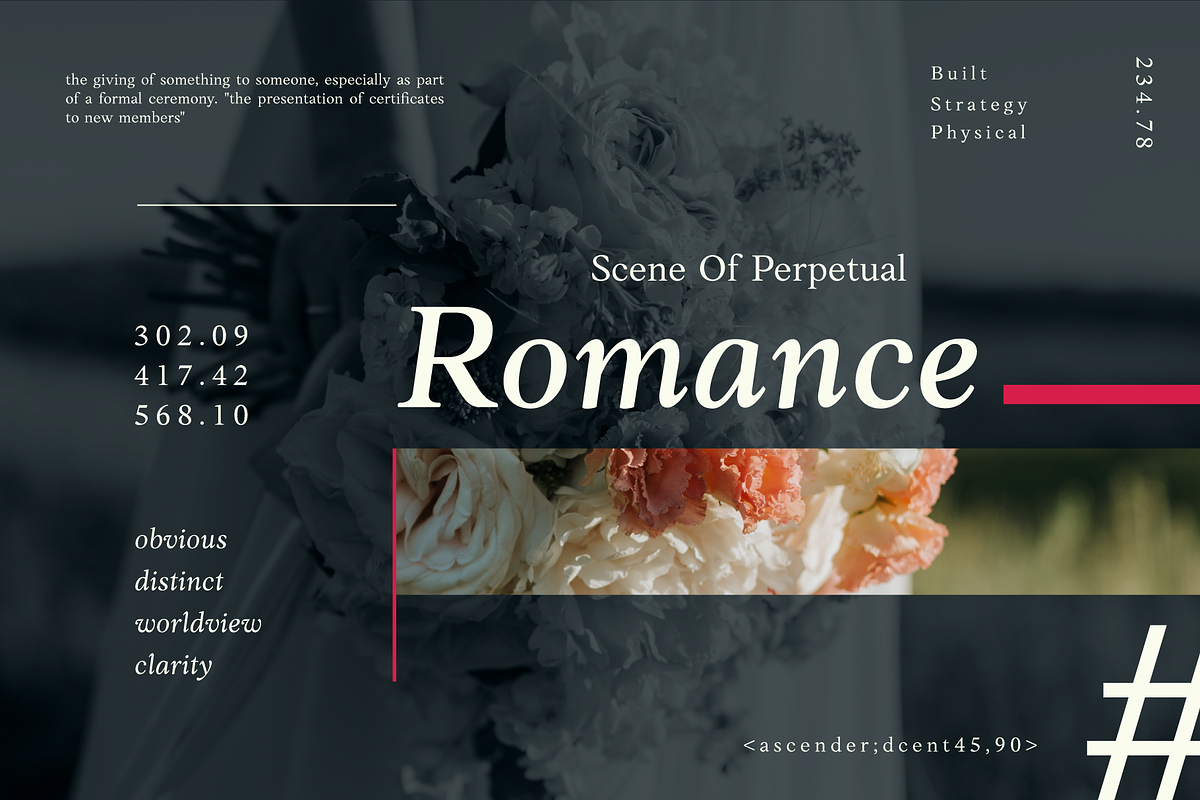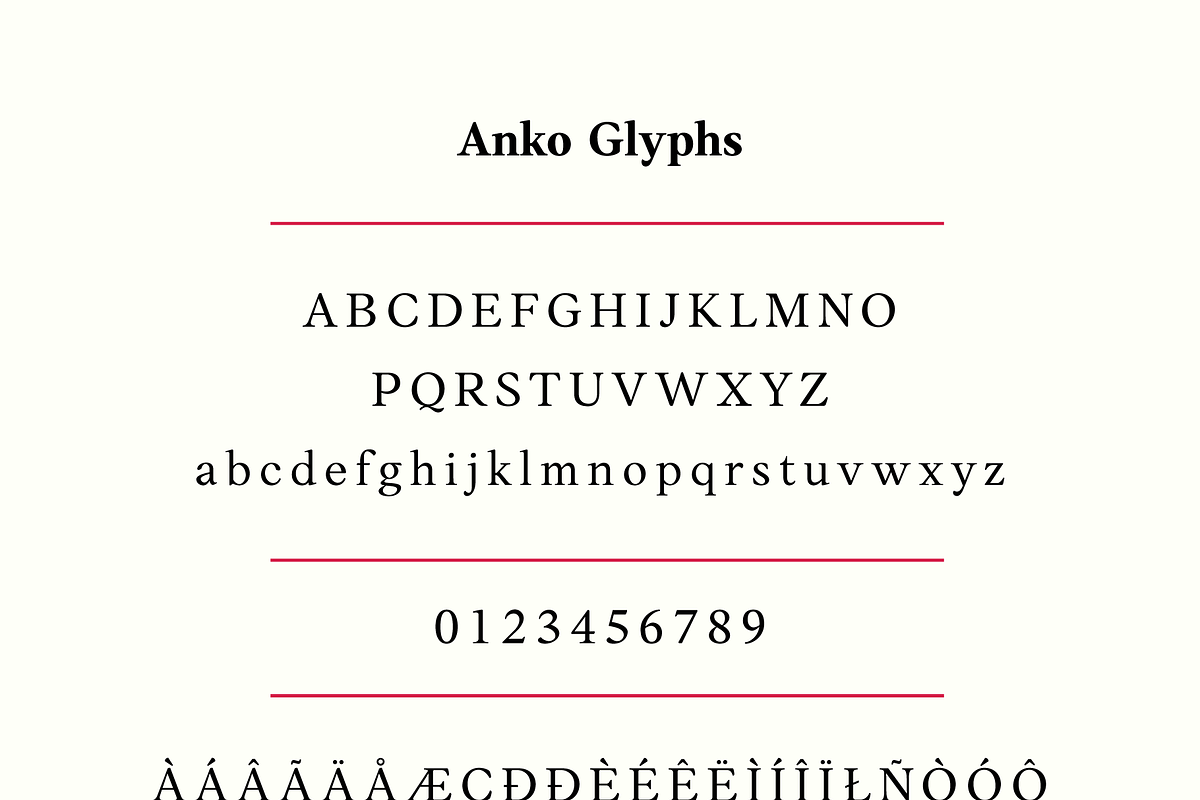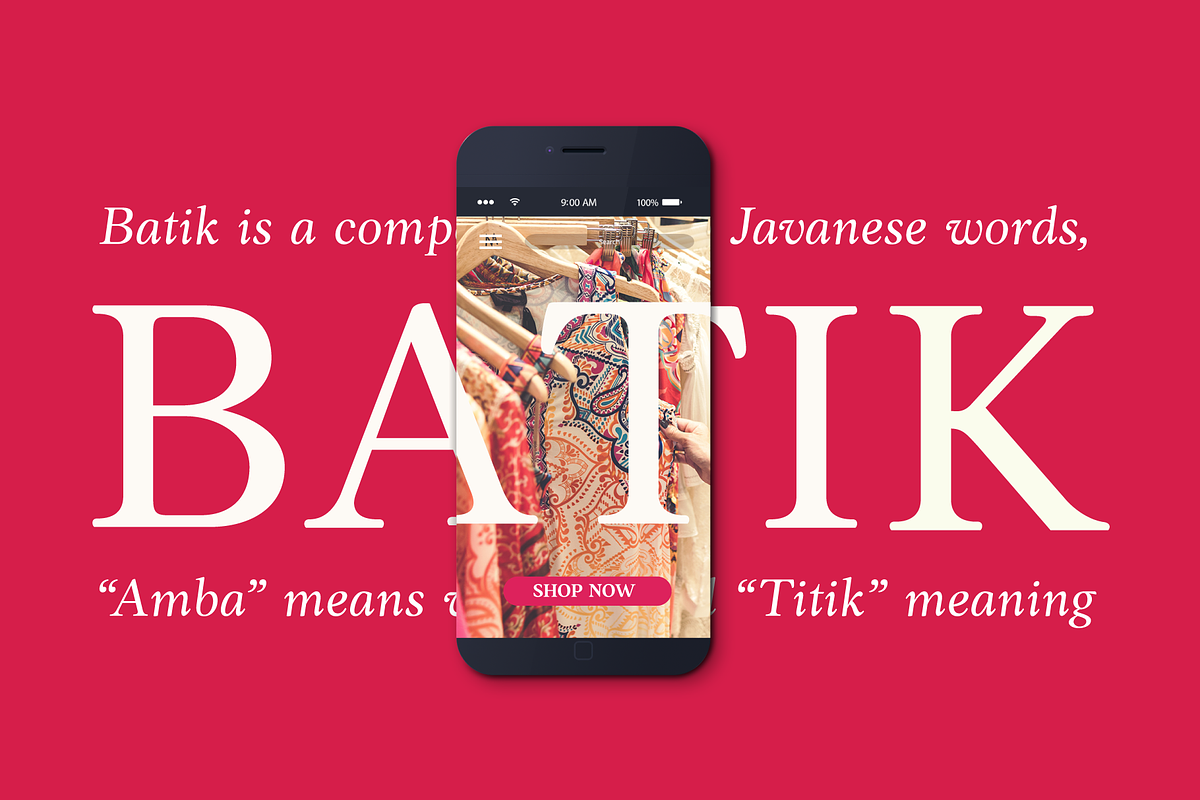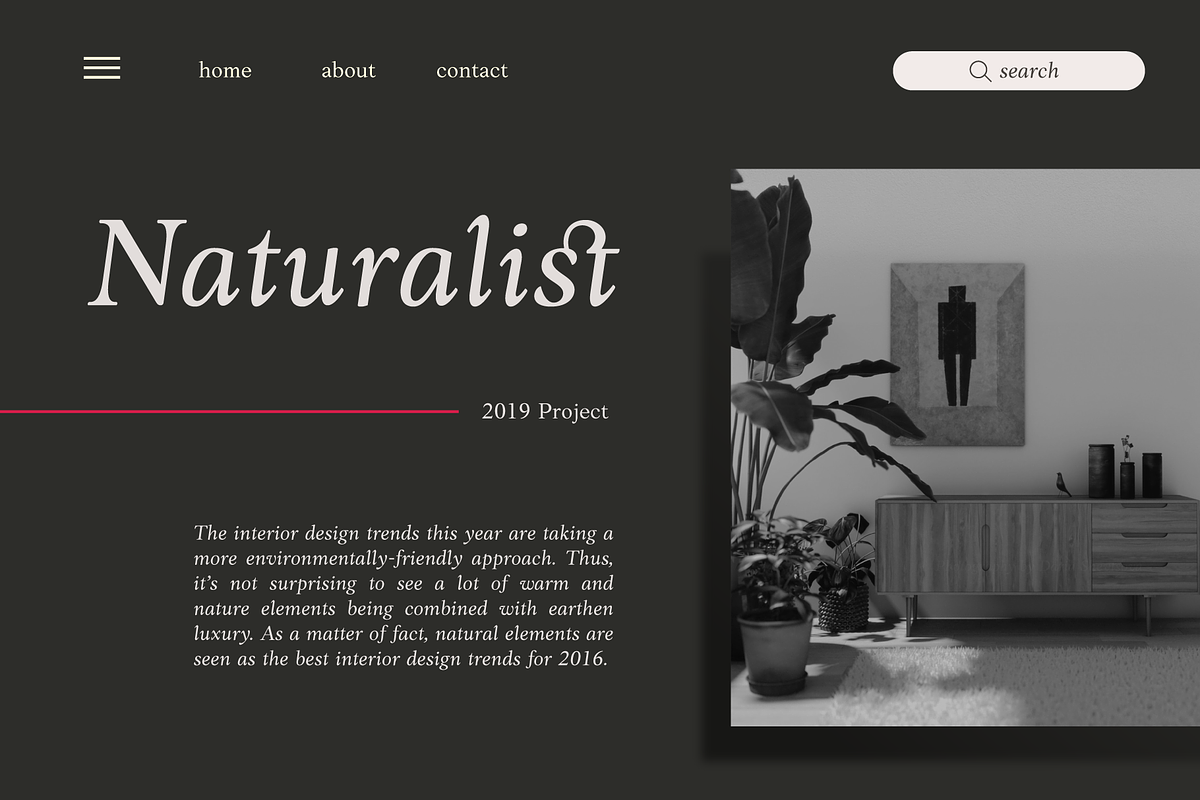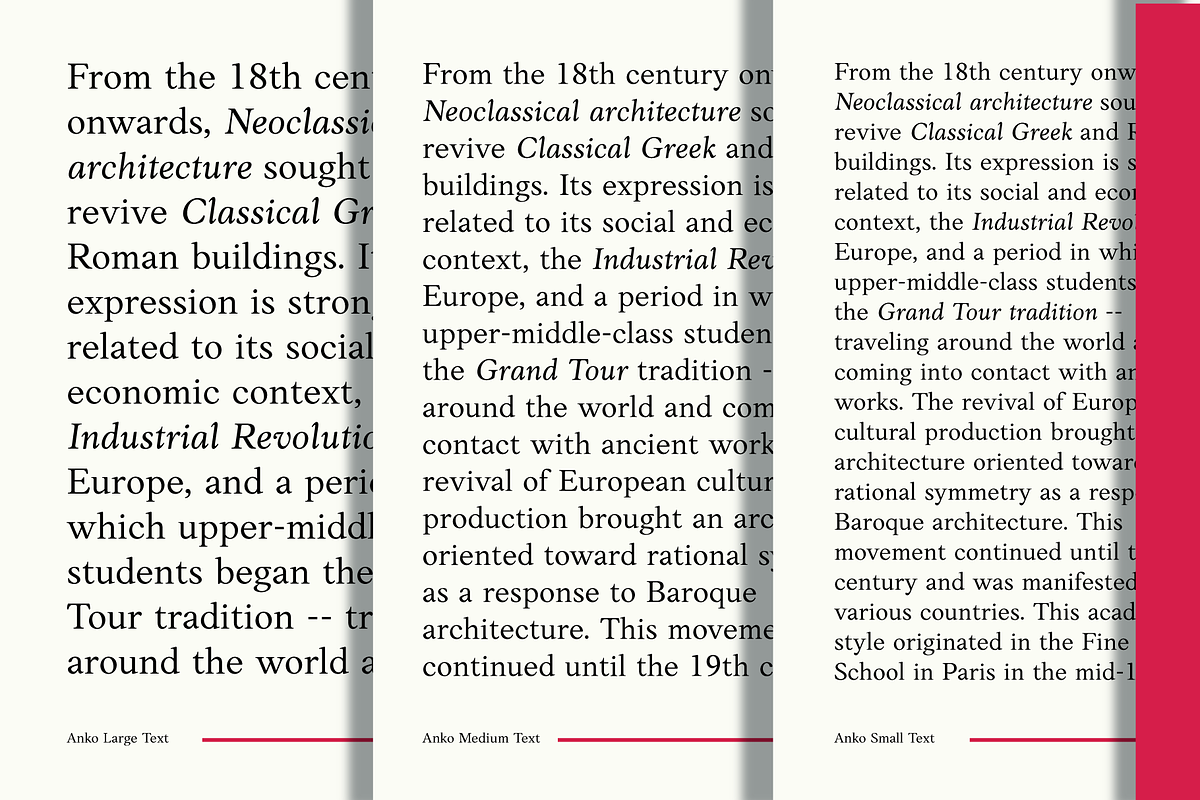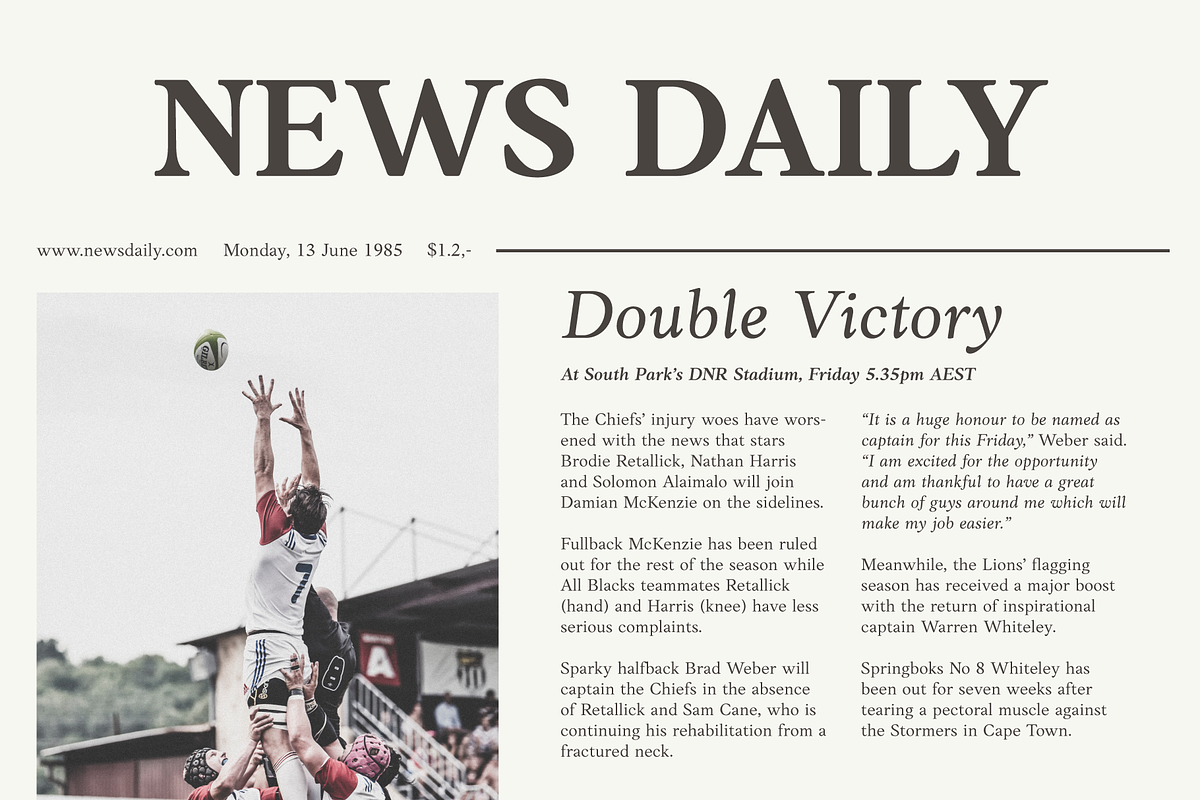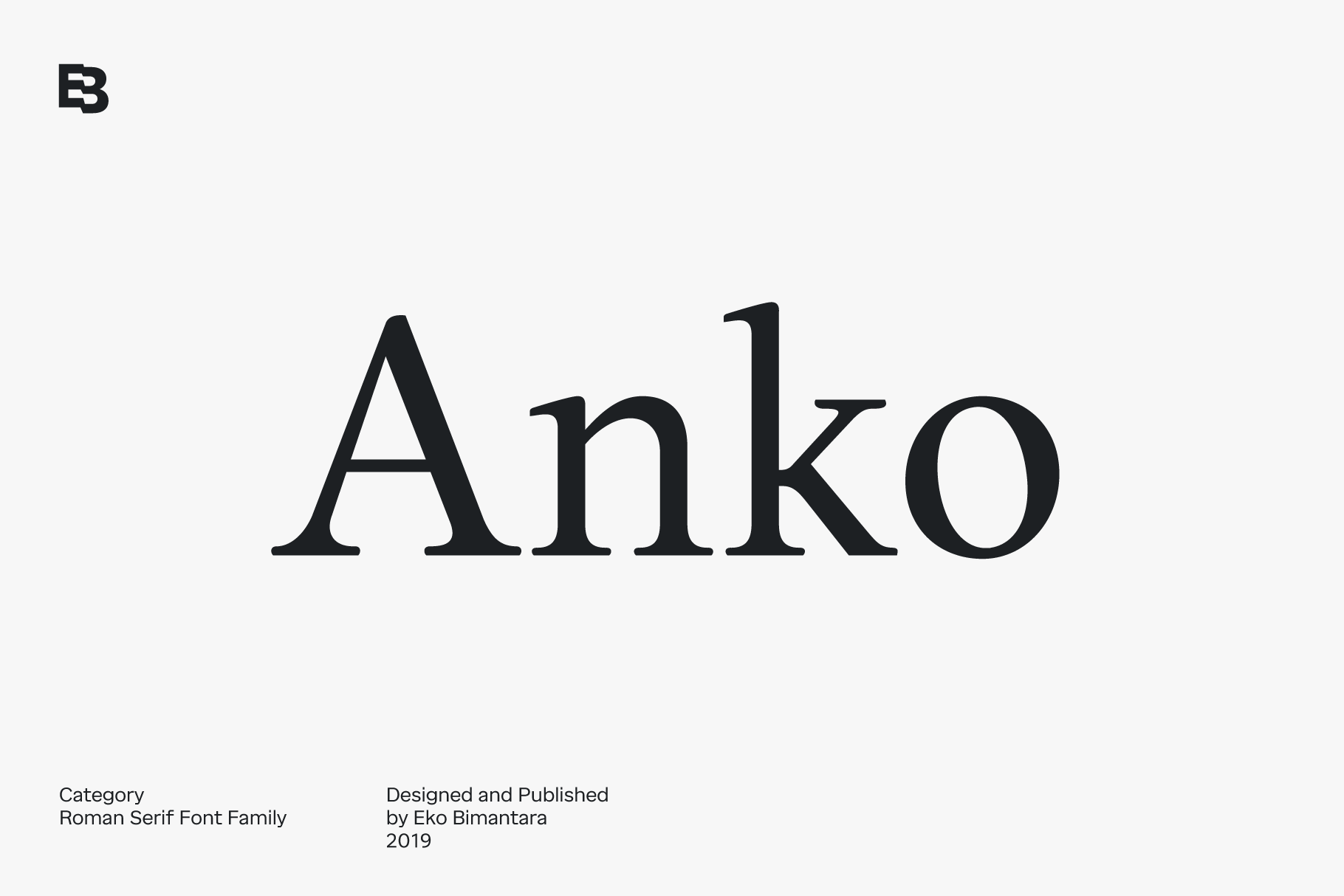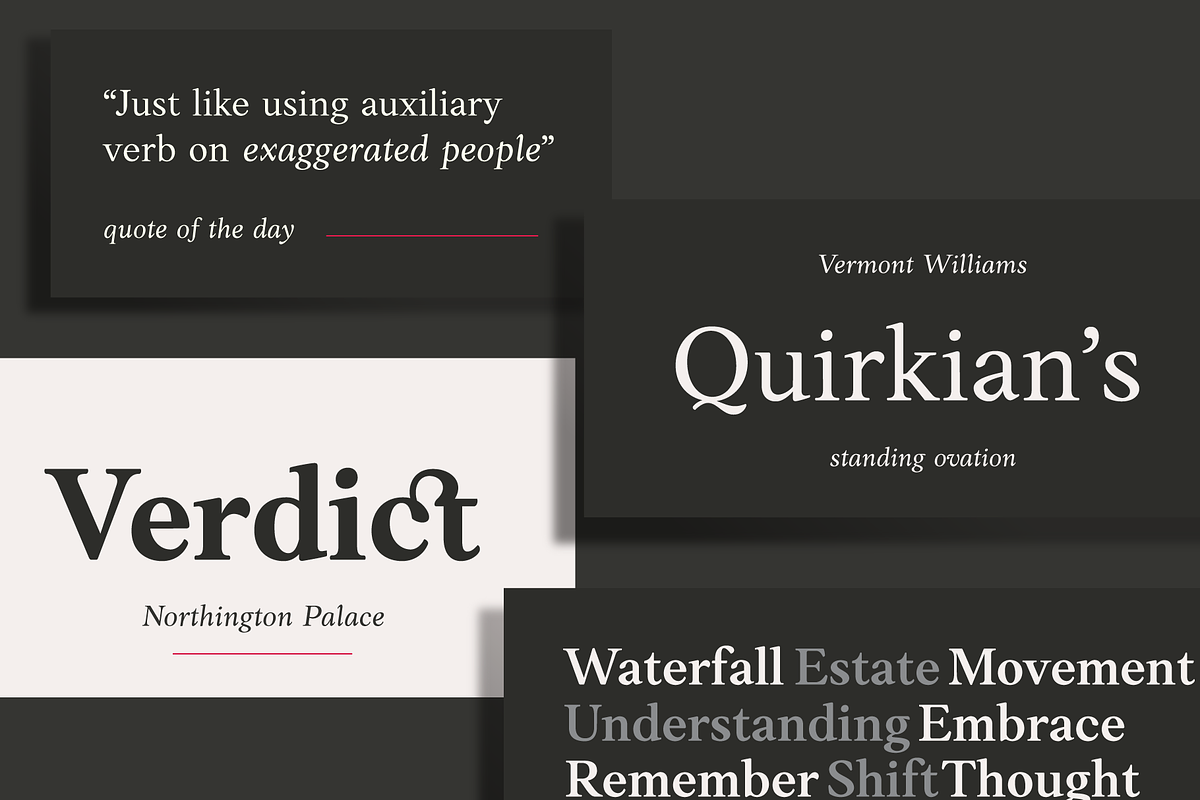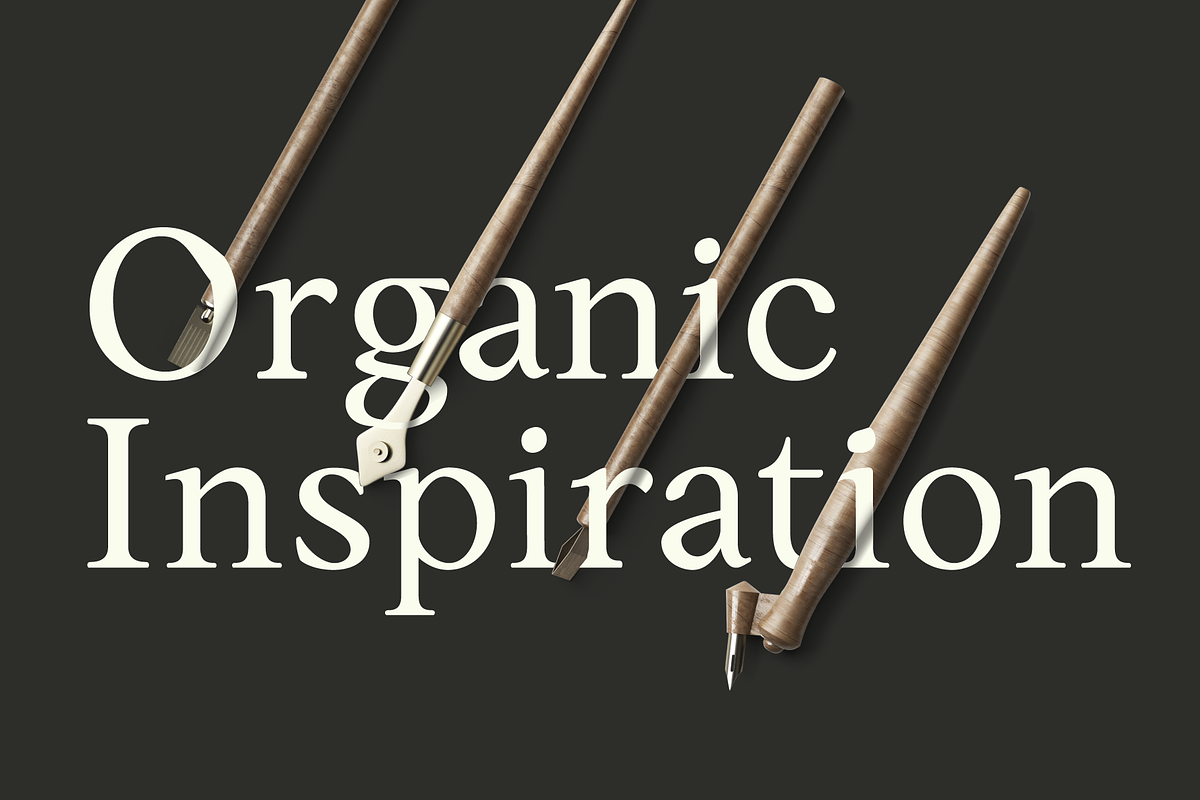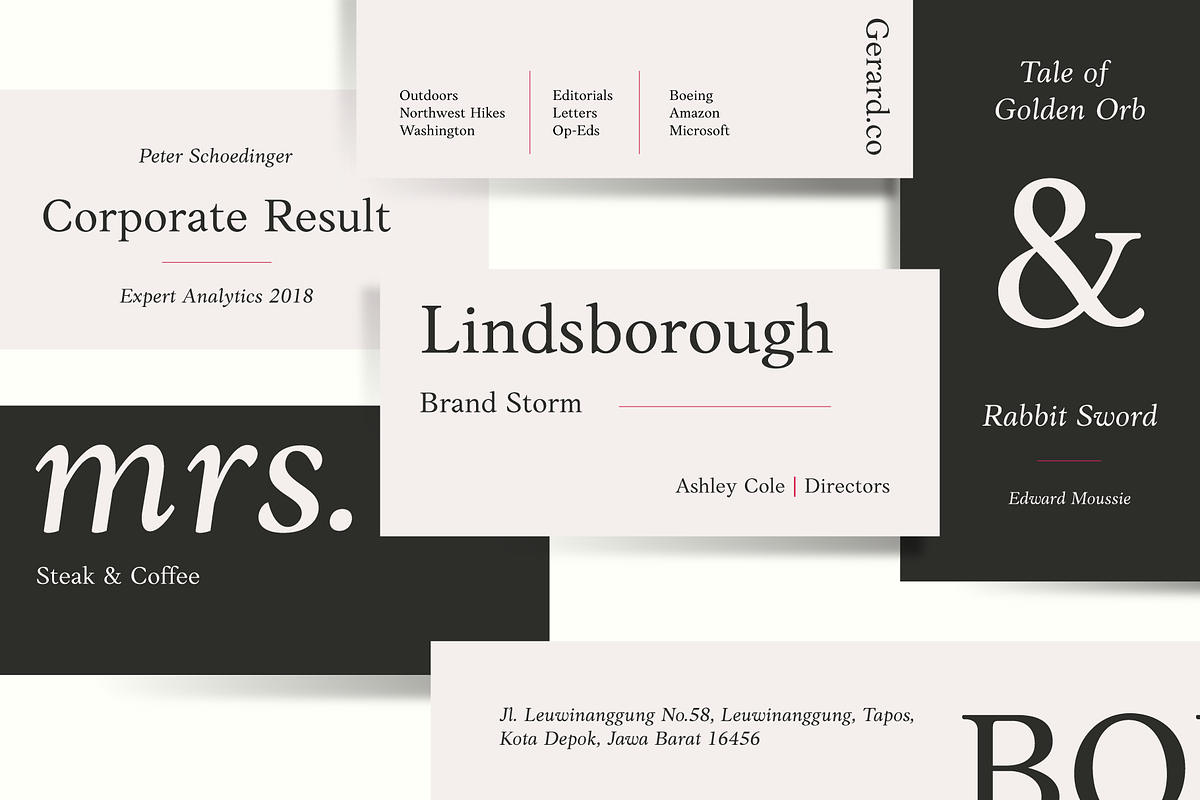
Anko; 8 Serif Fonts
Anko is a mixed style of Old Style Roman serif. The glyphs formed in extend width, smooth strokes, moderate stem contrast, and soft edges to pursue clarity, quick recognizable text and warm personality. The italics style is 8 degree low slanted with redrawned lowercase which shown a more organic and flowy forms. Contain 8 weight with more than 450 glyphs that support extended latin language, also with some opentype features such as standard and discretionary ligature and variation of numeral figures.